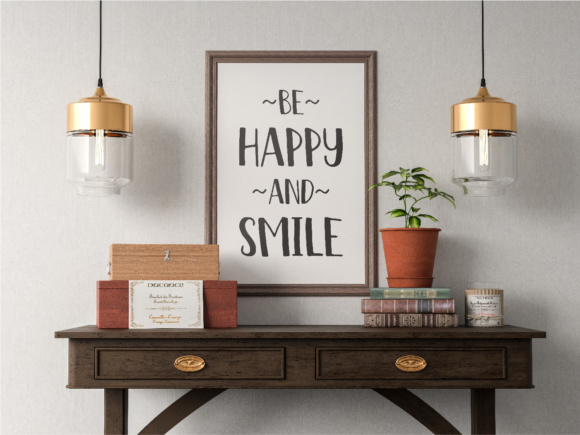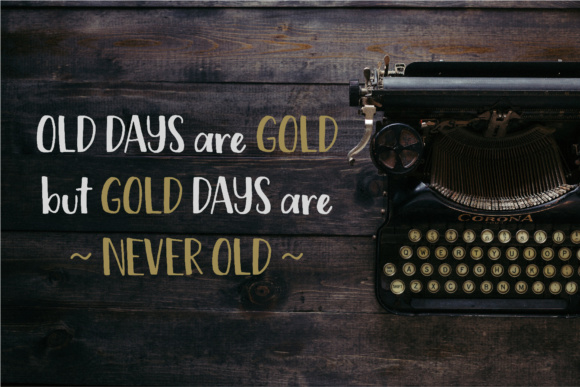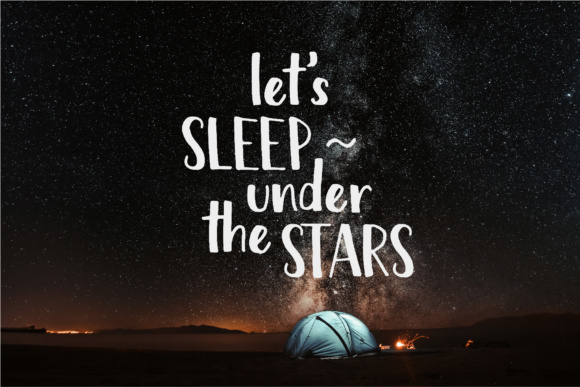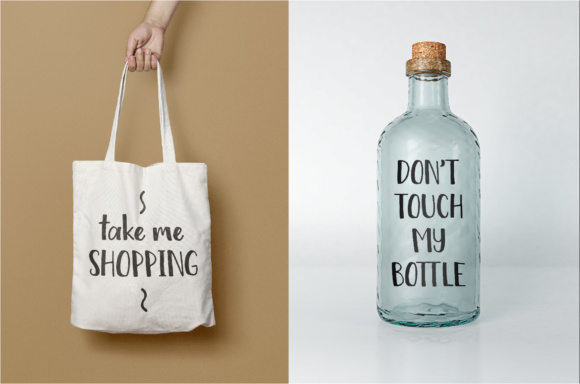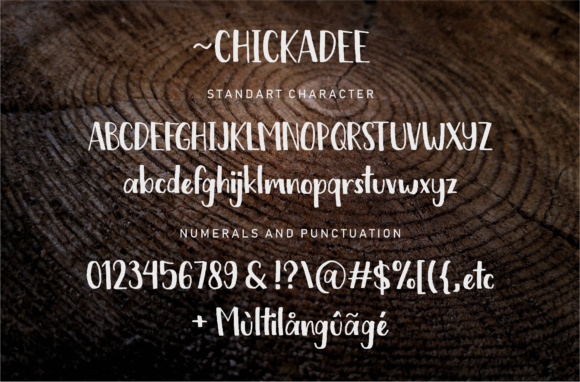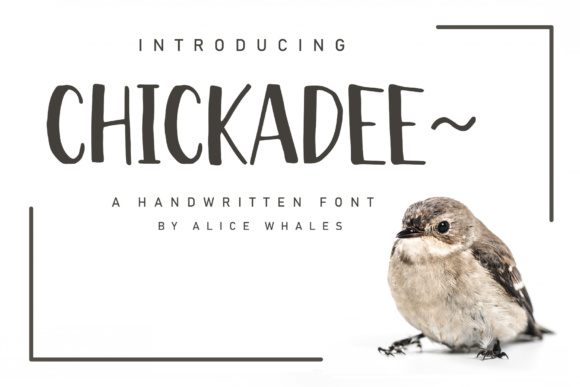
Introducing Chickadee Font: The Perfect Doodle Typeface for Fun and Quirky Designs
Are you tired of using the same old boring fonts in your design projects? Look no further than the Chickadee Font! This delightful doodle typeface is perfect for adding a touch of fun and quirkiness to any design work. With its legible and friendly appearance, Chickadee Font is sure to bring warmth and charm to your projects.
What is Chickadee Font?
Chickadee Font is a unique and playful typeface that is designed to add a personal touch to your designs. Its doodle-inspired style makes it perfect for use in a variety of projects, from children’s books and educational materials to branding and advertising campaigns. The font’s friendly and approachable appearance makes it easy to read and understand, making it a great choice for designers and crafters looking to add some personality to their work.
Key Features of Chickadee Font
- Legible and Friendly Appearance: Chickadee Font is designed to be easy to read and understand, making it perfect for use in a variety of projects.
- Doodle-Inspired Style: The font’s playful and quirky style makes it perfect for adding a touch of fun and personality to your designs.
- Warm and Charming: Chickadee Font is designed to bring warmth and charm to your projects, making it perfect for use in designs where you want to create a friendly and approachable tone.
- Versatile: The font is perfect for use in a variety of projects, from children’s books and educational materials to branding and advertising campaigns.
Why Use Chickadee Font?
There are many reasons why you should consider using Chickadee Font in your design projects. Here are just a few:
- Add Personality to Your Designs: Chickadee Font is a great way to add some personality and whimsy to your designs, making them stand out from the crowd.
- Create a Friendly and Approachable Tone: The font’s friendly and approachable appearance makes it perfect for use in designs where you want to create a warm and welcoming tone.
- Perfect for Children’s Projects: Chickadee Font is a great choice for use in children’s books, educational materials, and other projects where you want to create a fun and engaging tone.
- Easy to Read and Understand: The font’s legible appearance makes it easy to read and understand, even for younger readers.
How to Use Chickadee Font
Using Chickadee Font is easy! Here are a few tips to get you started:
- Pair with Other Fonts: Chickadee Font pairs well with a variety of other fonts, making it easy to create a unique and visually appealing design.
- Use in Headings and Titles: The font’s playful and quirky style makes it perfect for use in headings and titles, where you want to grab the reader’s attention.
- Add to Your Design Toolkit: Chickadee Font is a great addition to any design toolkit, providing a fun and versatile font that can be used in a variety of projects.
In conclusion, Chickadee Font is a unique and playful typeface that is perfect for adding a touch of fun and quirkiness to any design work. With its legible and friendly appearance, warm and charming style, and versatile use, Chickadee Font is a great choice for designers and crafters looking to add some personality to their projects. So why not give it a try and see how it can enhance your designs?
Tips and Variations
Here are a few tips and variations to help you get the most out of Chickadee Font:
- Experiment with Different Sizes: Chickadee Font looks great in a variety of sizes, from small and delicate to large and bold.
- Try Different Colors: The font’s playful and quirky style makes it perfect for use in a variety of colors and color combinations.
- Use in Combination with Other Design Elements: Chickadee Font pairs well with a variety of other design elements, such as illustrations, graphics, and textures.